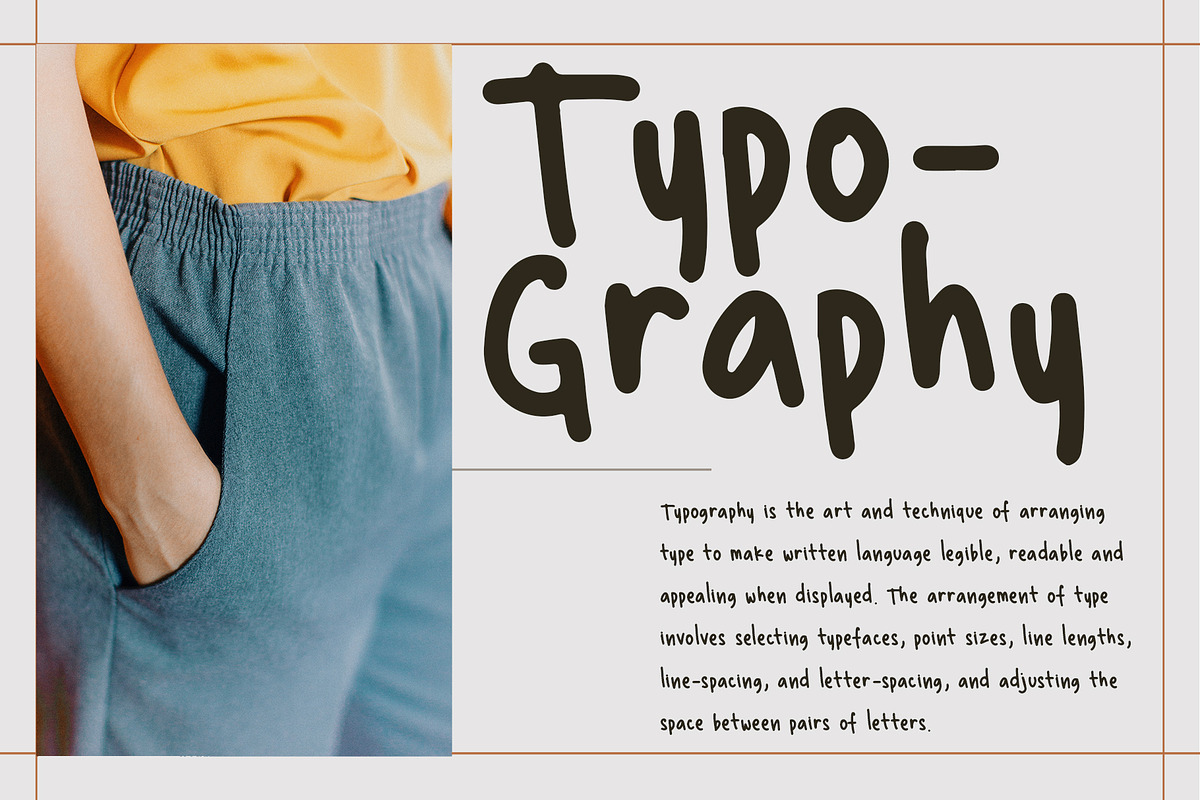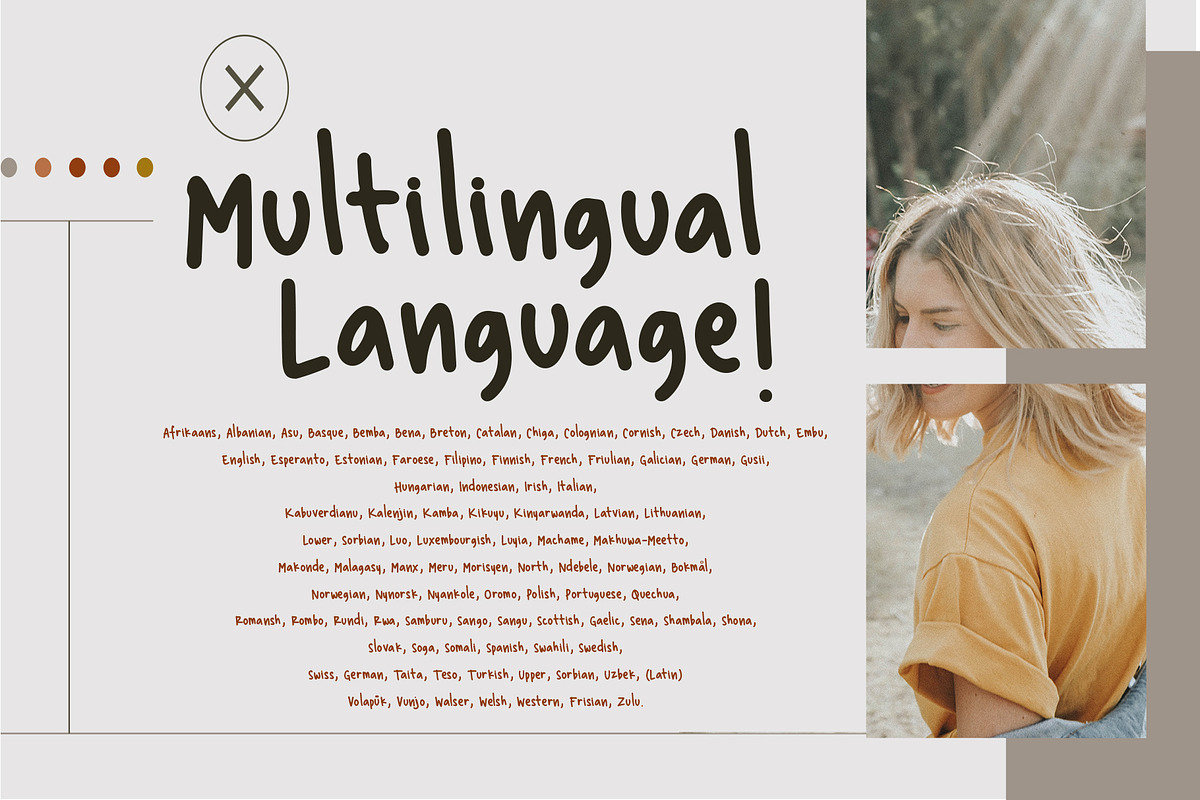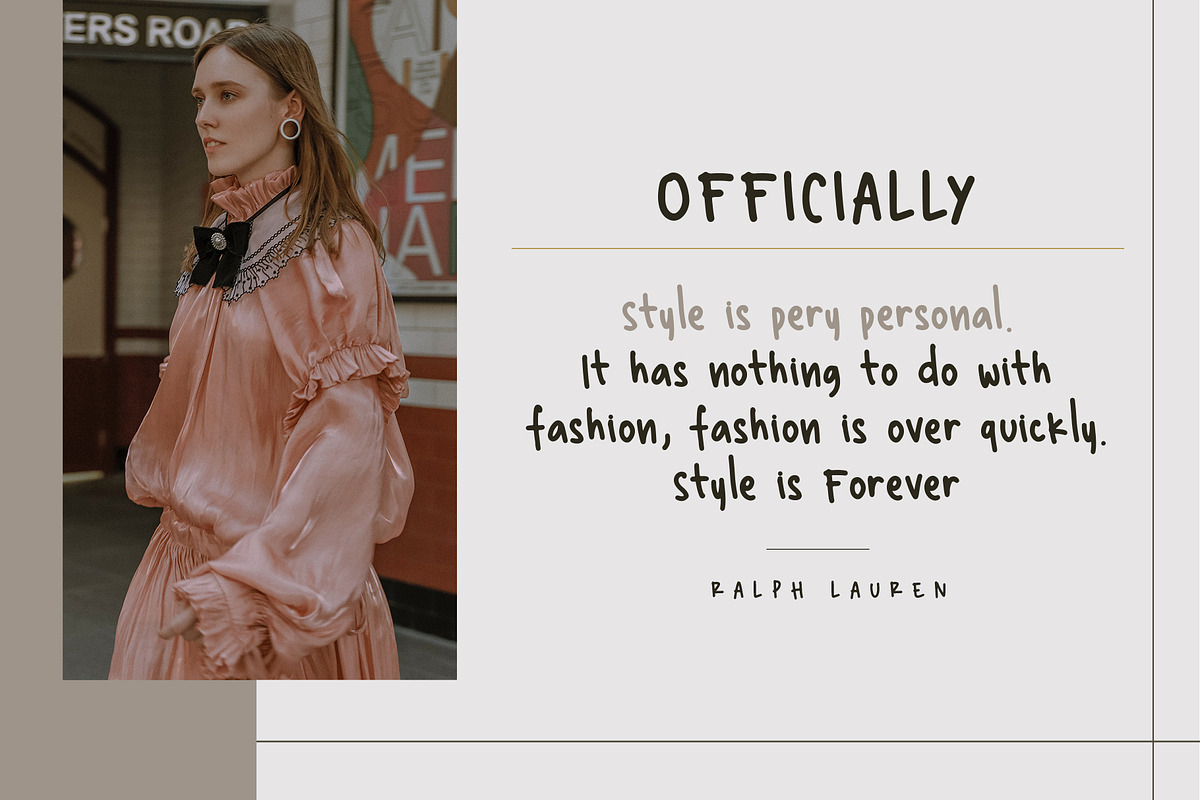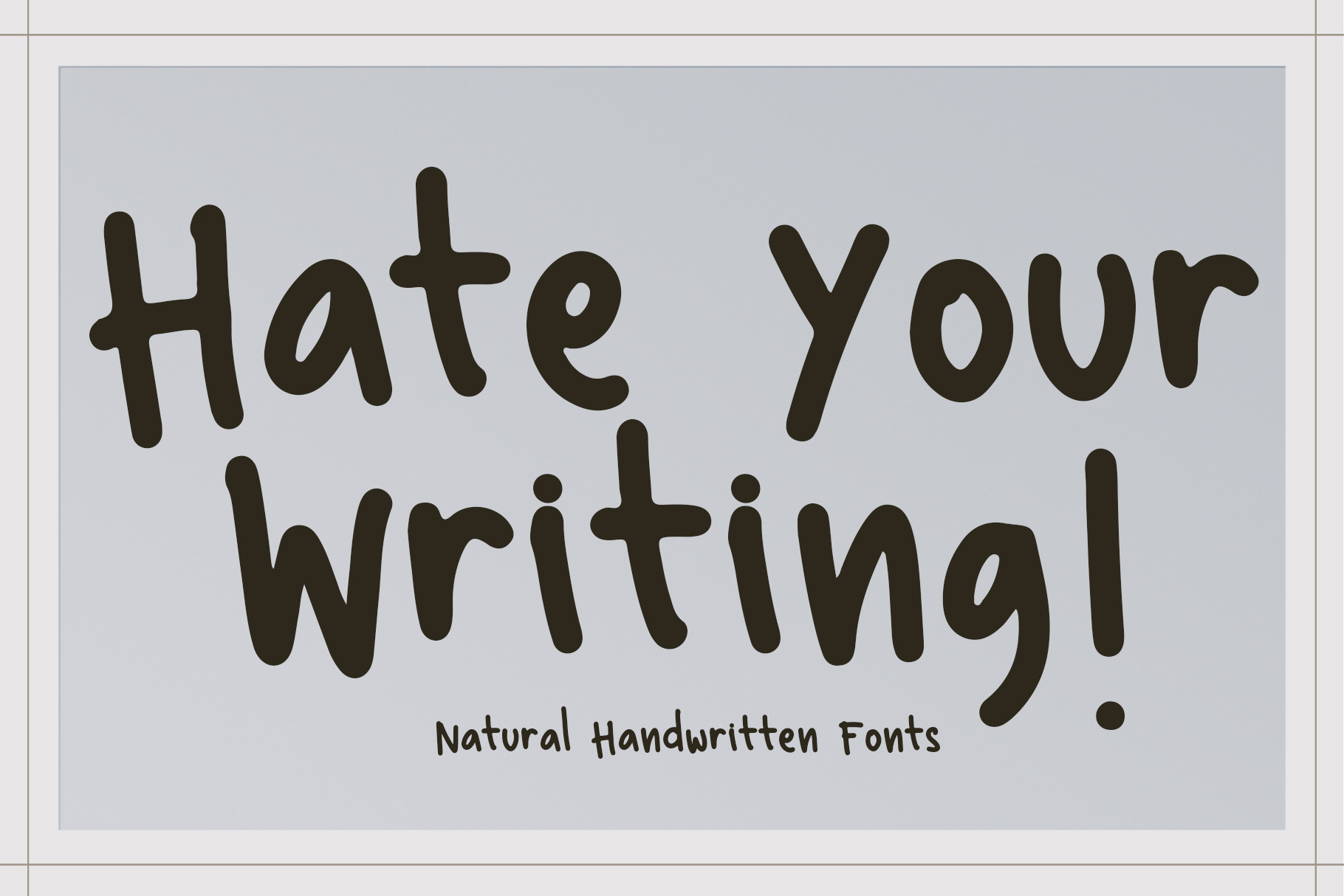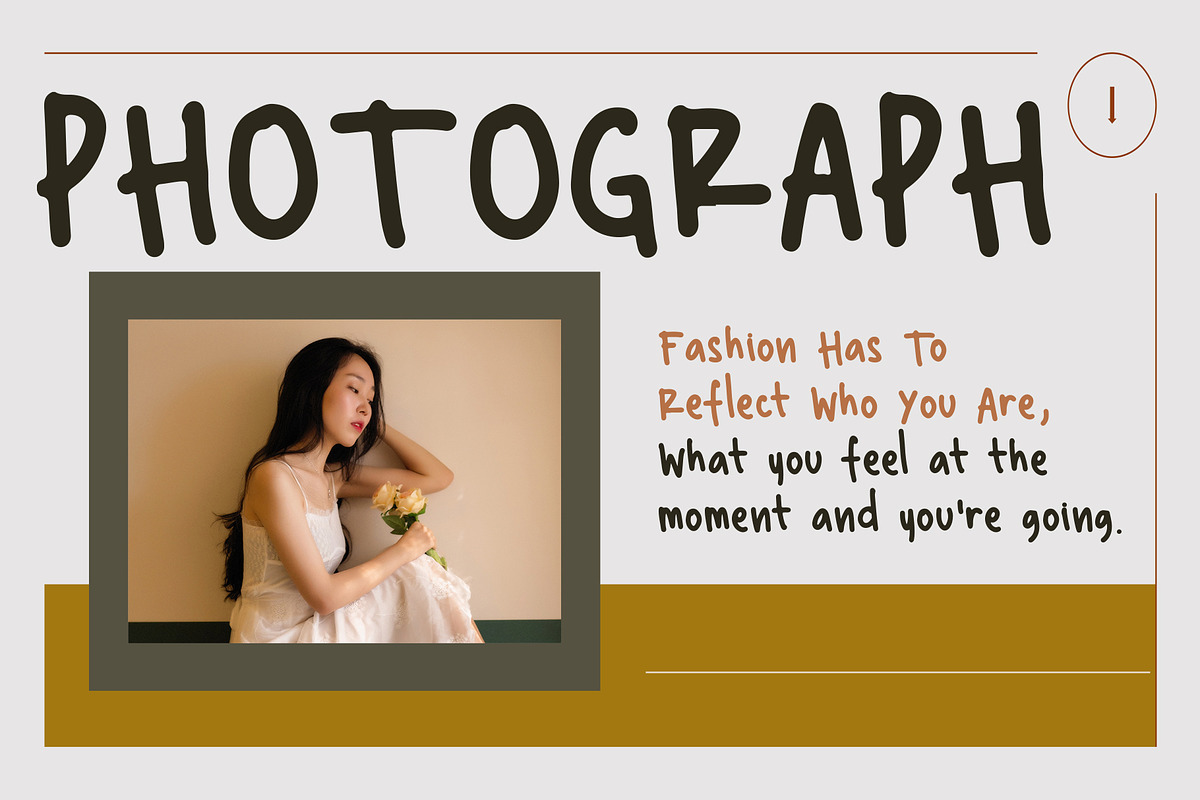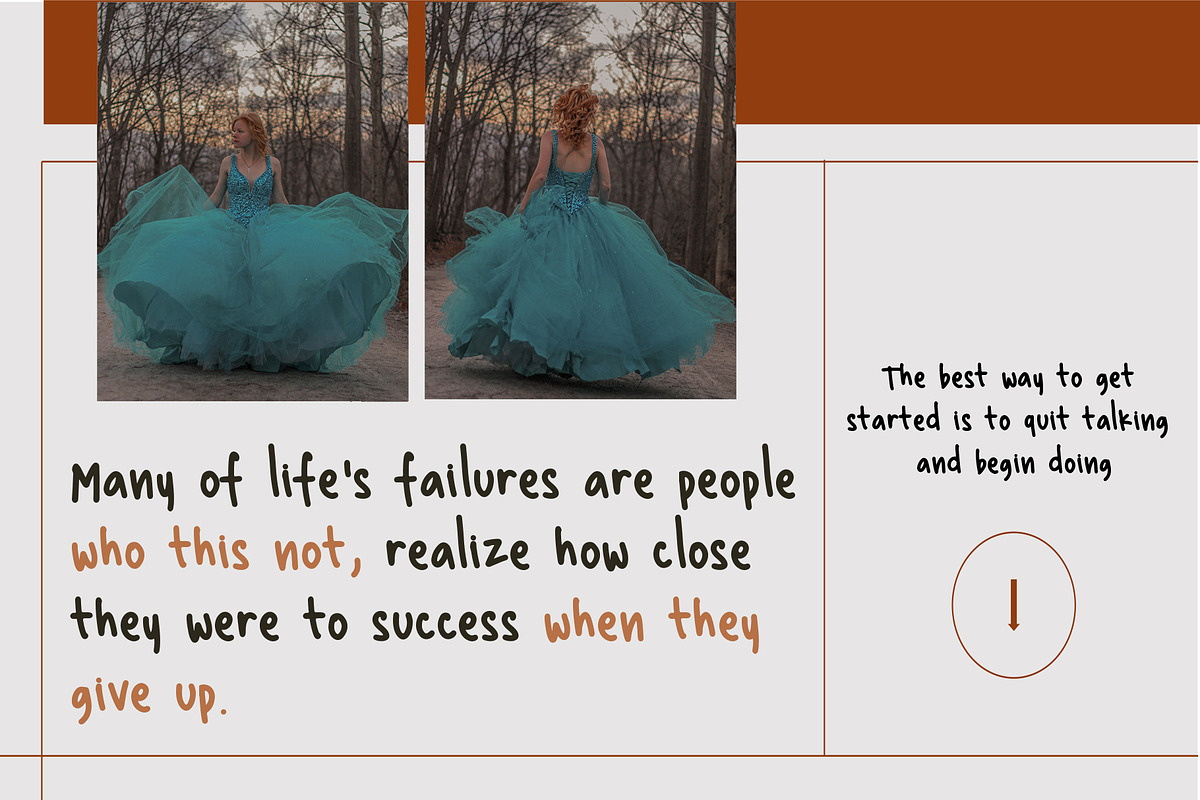
Hate Your Writing Fonts
Introducing the new font Hate Your Writing.
This font written by my daughter. Easy to read. Make your design looks stuning.
What's Character Included ?
- Multilingual Language.